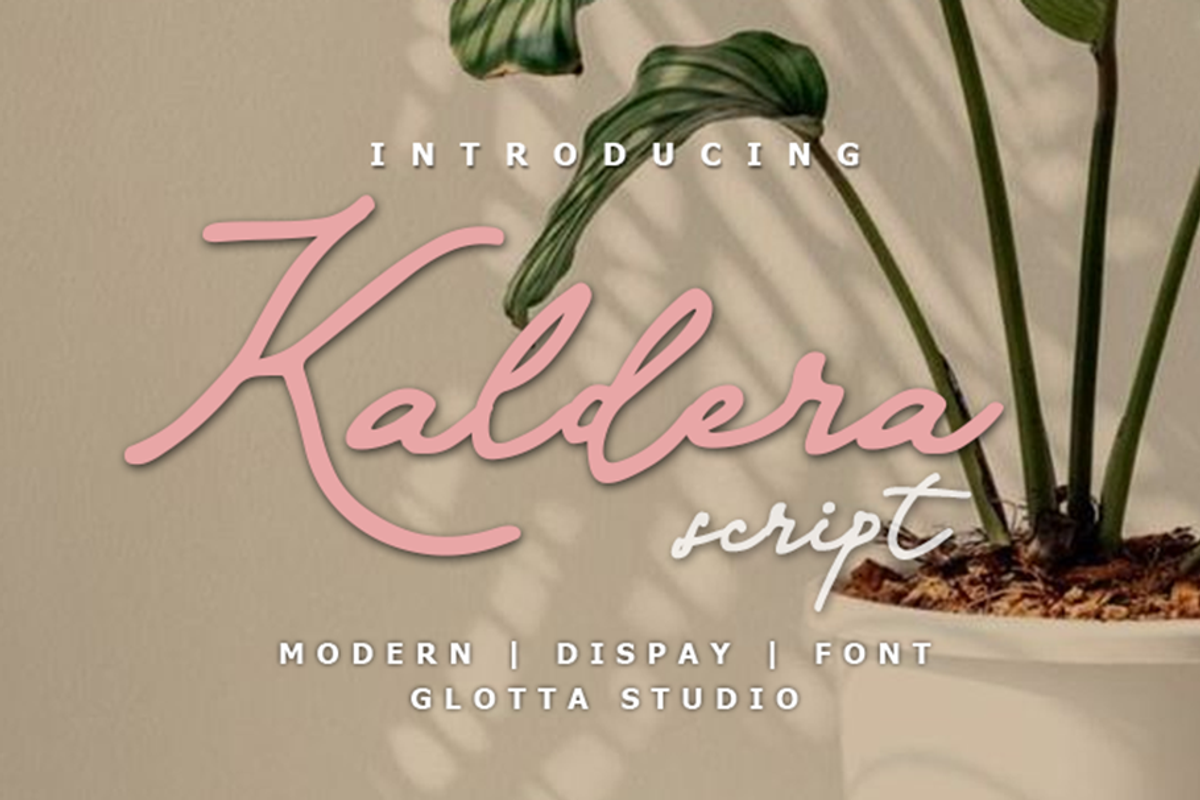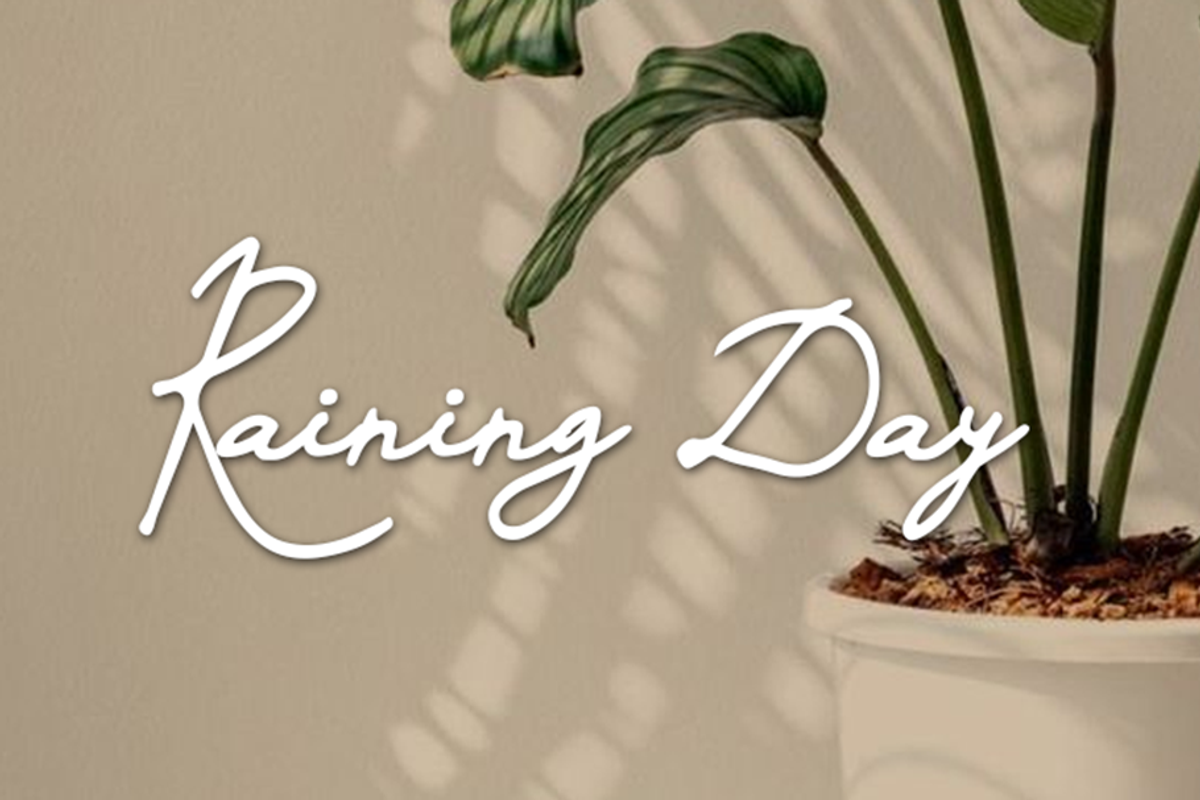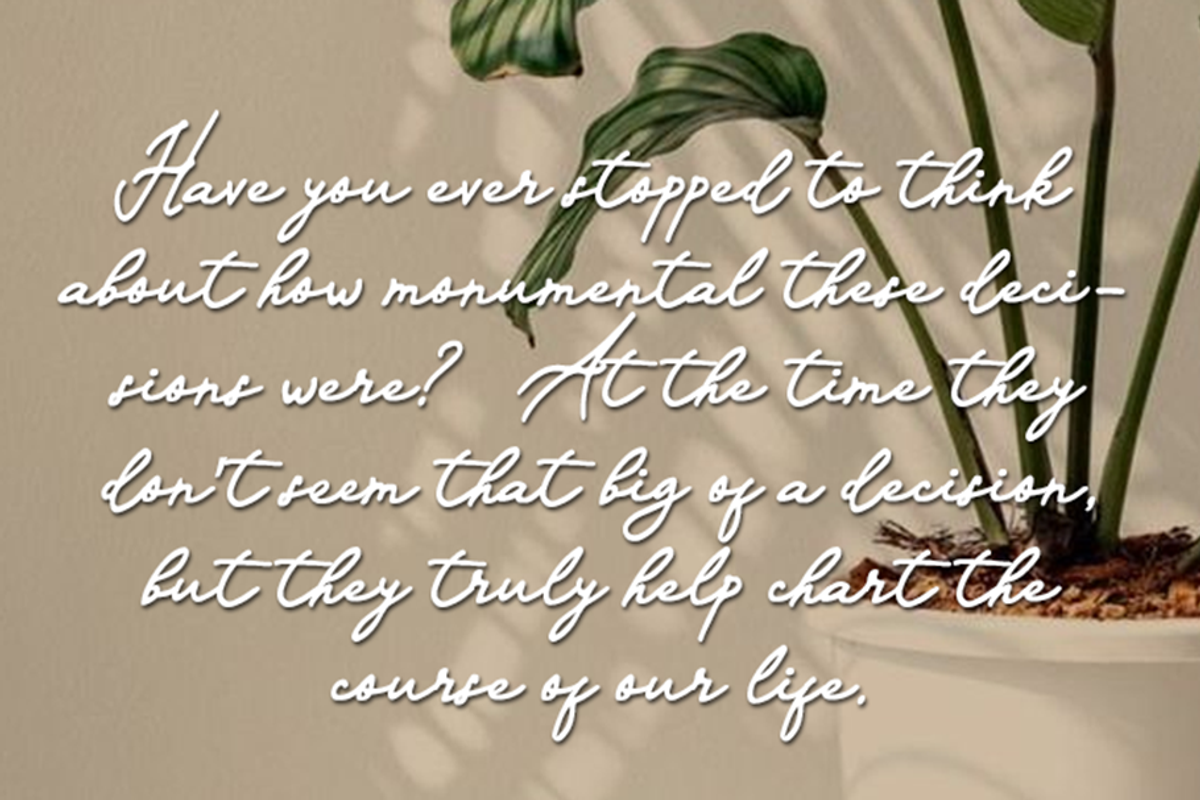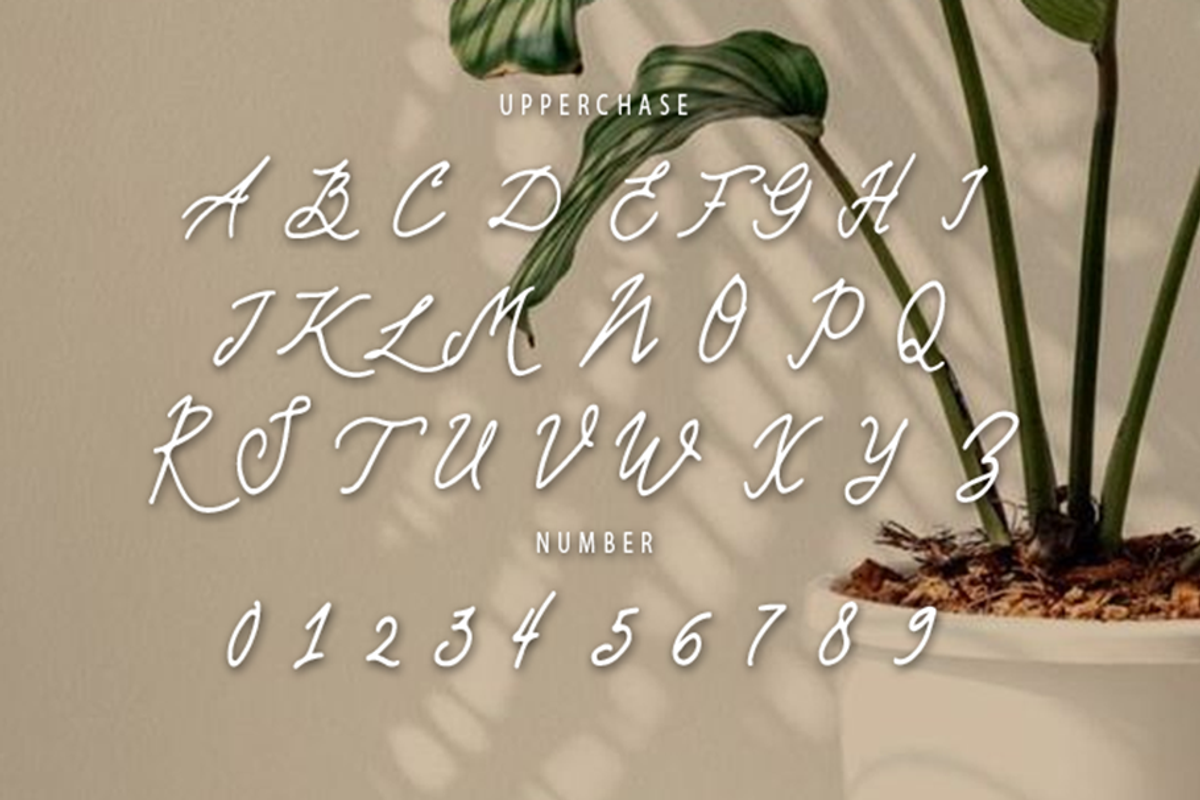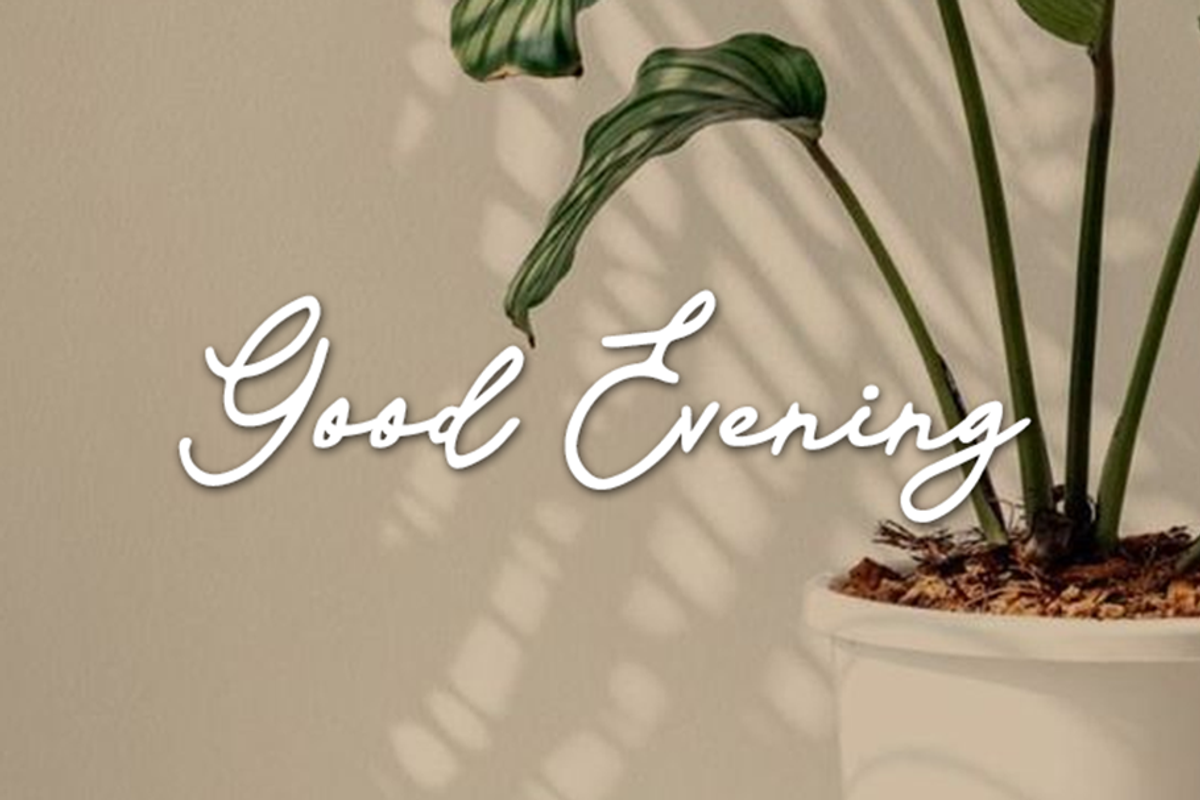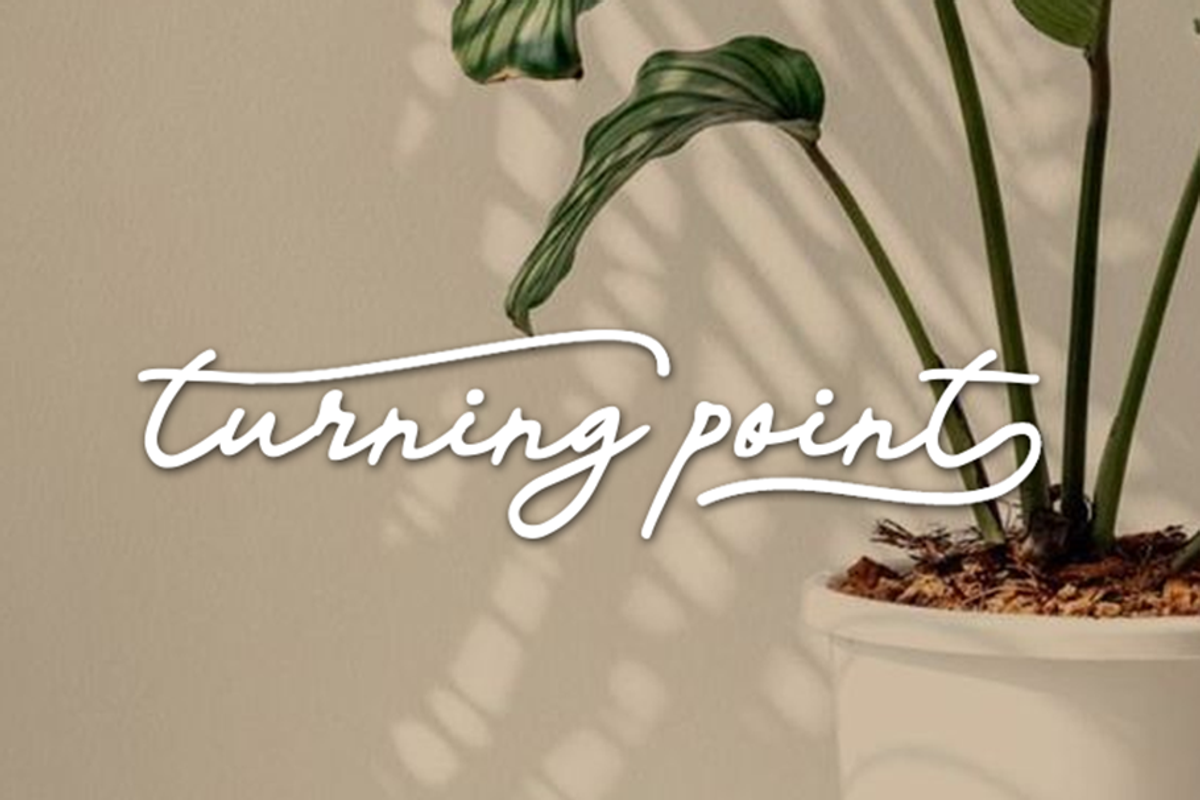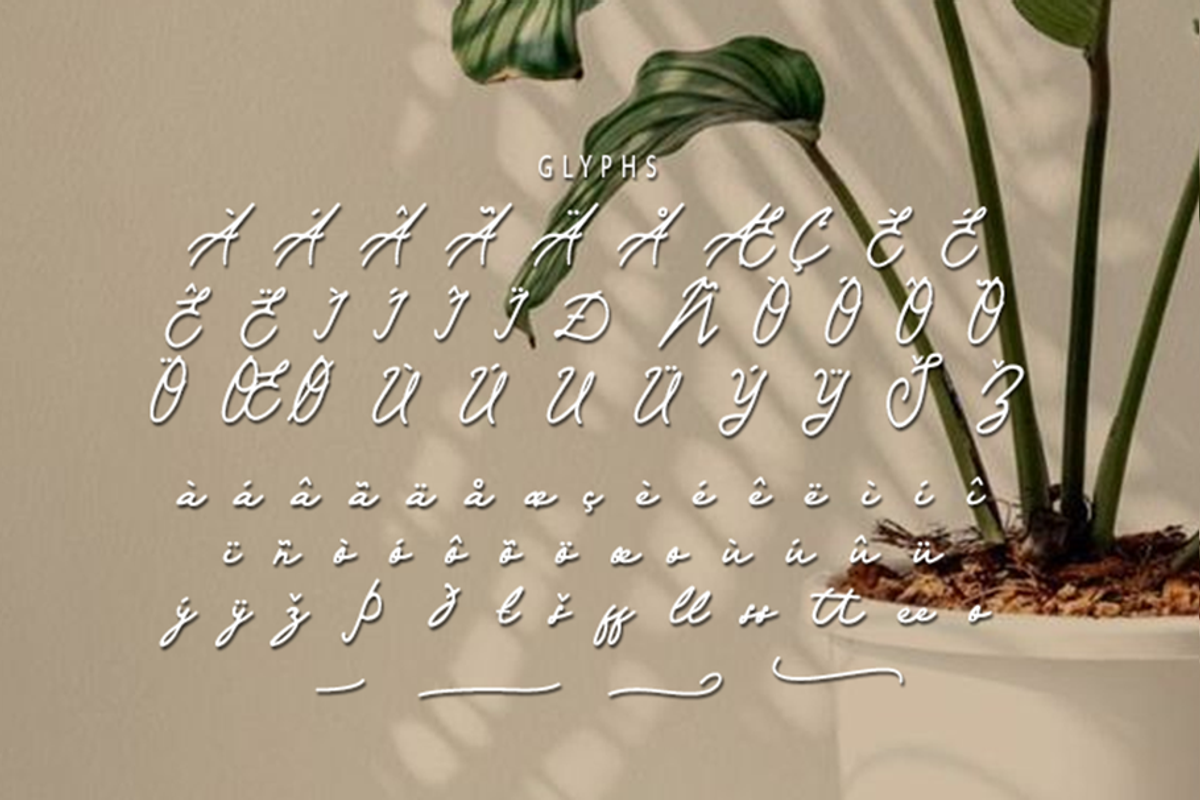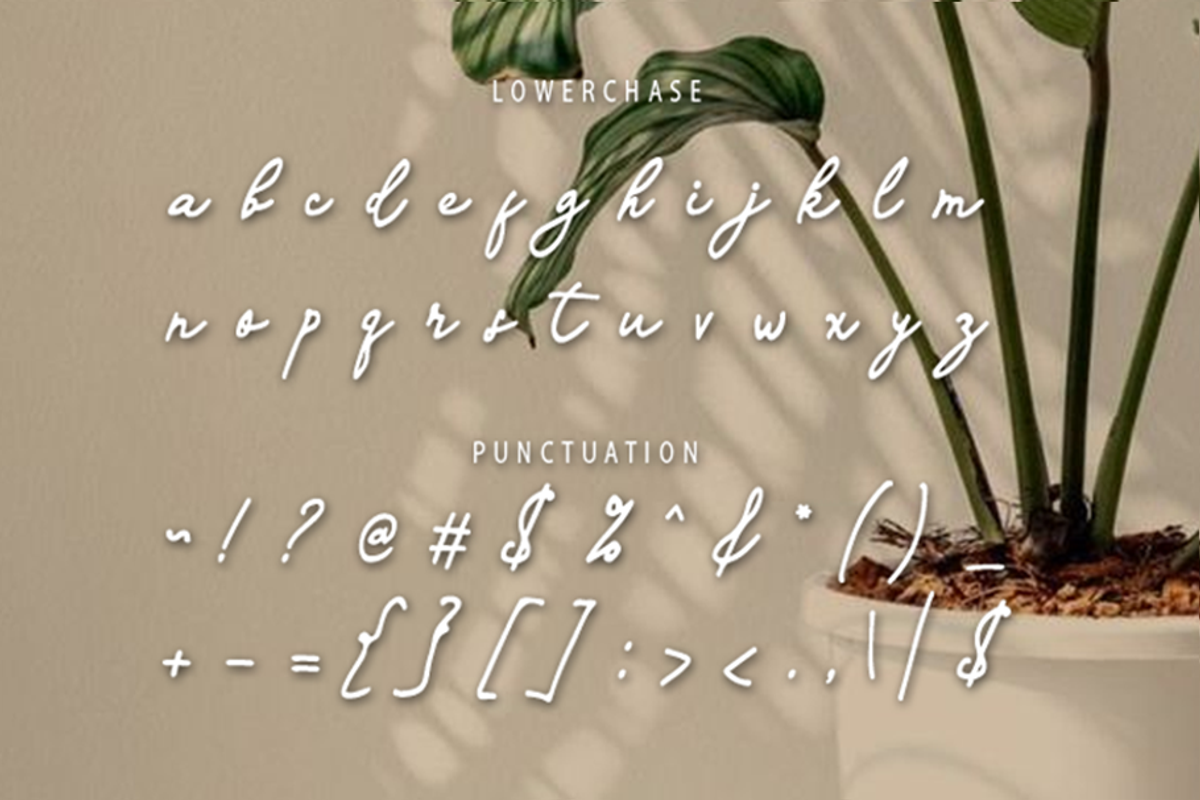
Kaldera
Hi Ladies and Gentleman! Kaldera Script is handwritten font it’s looks classy, vintage, old, catchy and easy to use. Kaldera Script is the great choice for watermark on signature, quotes, album cover, business card and many other design project. Kaldera Script is here to make your work or your business to high level!!! Features
- Numerals and Functional
- Alternate and ligature
- Begin and end swashes